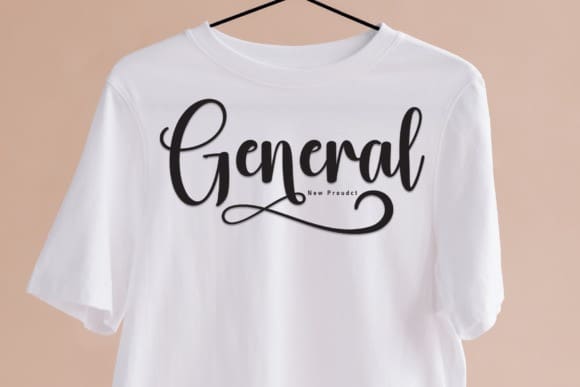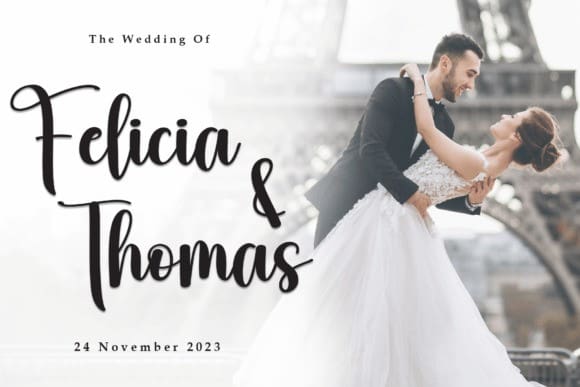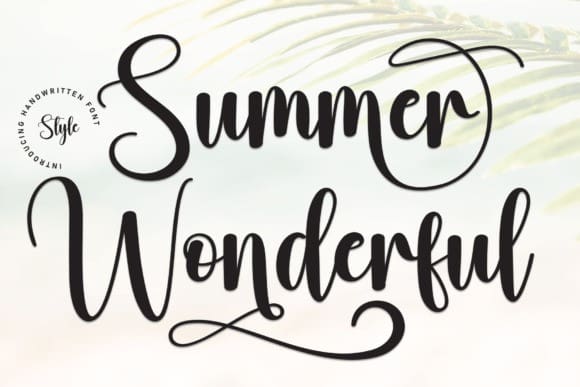
Summer Wonderful Font
Summer Wonderful Font is a sweet and friendly handwritten font. Its natural and unique style makes it incredibly fitting to a large pool of designs. The only limit is your imagination.